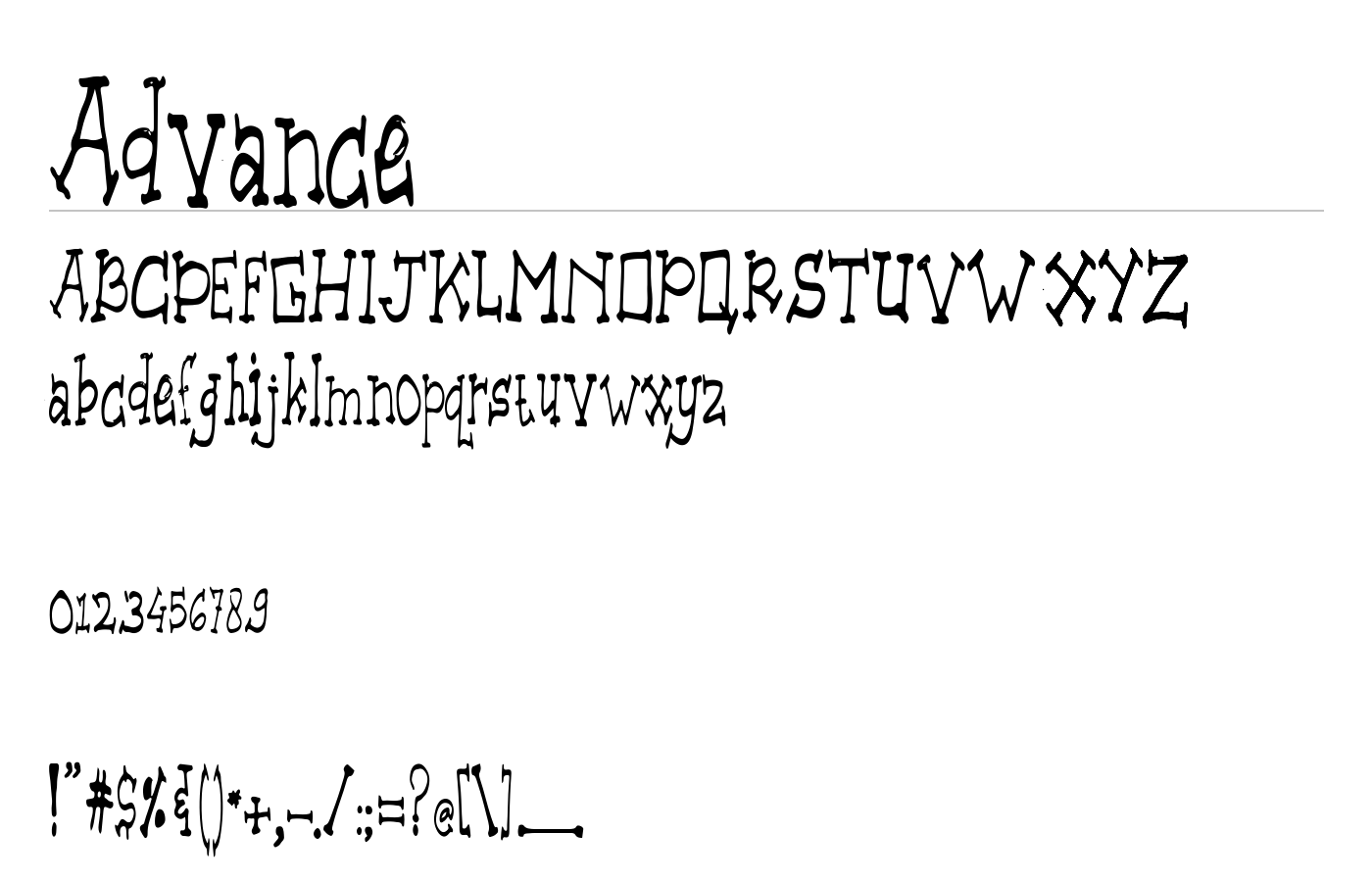
Advance Font is a quirky and playful serif typeface with uneven strokes and whimsical serifs that give it a hand-drawn, slightly eerie feel. Its irregular shapes and high contrast in stroke weight make it ideal for creative projects seeking a unique, vintage-inspired, or Halloween-themed vibe. This font works well for posters, themed branding, and decorative headlines where personality and distinctiveness are key.
Advance Font
About Advance Font